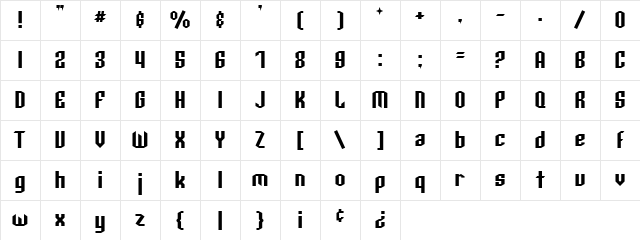
Archery Black Regular
Archery Black Family
Archery Black Regular
Design Context for Archery Black
Archery Black is a composed and adaptable typeface that performs quietly and consistently across a wide range of design contexts.